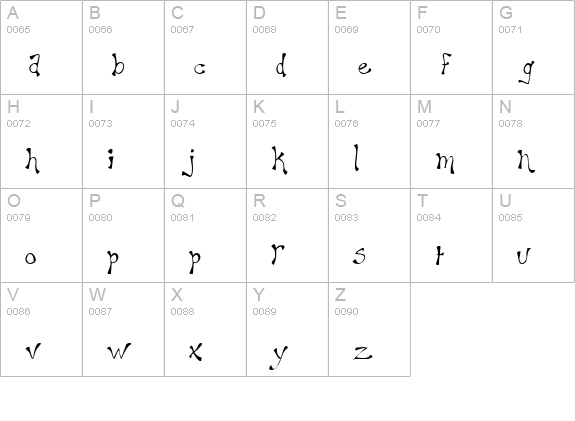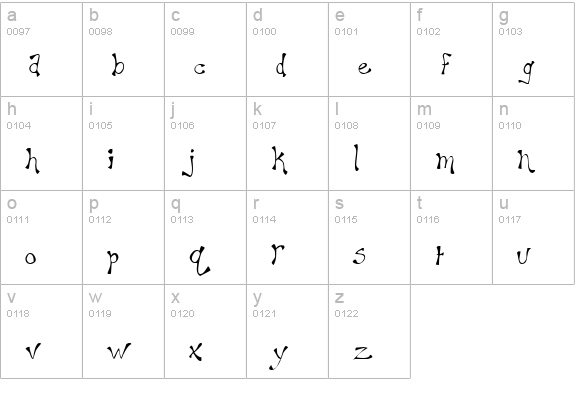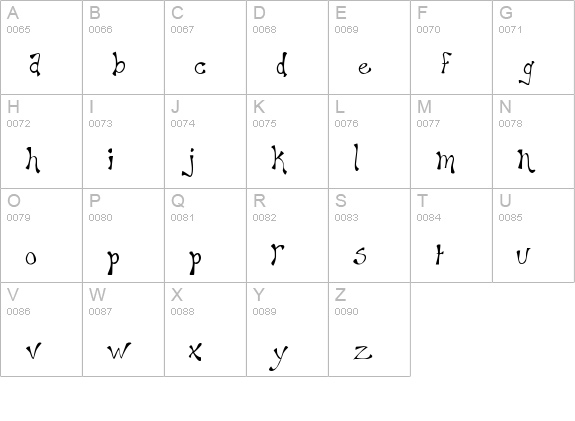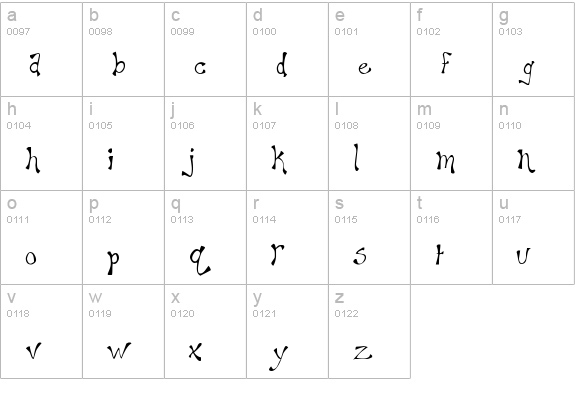
Maryellen Font Details
Introducing Maryellen, a stunning font that effortlessly combines elegance and versatility. With its graceful curves and refined details, Maryellen is the perfect choice for both formal and informal designs. Whether you are creating wedding invitations, logos, or branding materials, this font will add a touch of sophistication to any project. But what makes Maryellen truly special is that it is not only visually captivating, but also freely available to download at FontsMarket.com. Yes, you heard it right - this remarkable font can be yours without spending a dime. Now you can elevate your designs without breaking the bank. Downloading Maryellen from FontsMarket.com is a breeze. Simply visit the website, find the font, and click the download button. Within seconds, you'll have access to this incredible typeface that will enhance your creative endeavors. Don't miss out on the opportunity to add Maryellen to your font collection. Once you have Maryellen in your possession, the possibilities are endless. Its versatility allows it to shine in a variety of contexts, from elegant wedding stationery to modern corporate branding. The smooth lines and balanced letterforms ensure that your text will be effortlessly legible, while the subtle details give it a unique and memorable touch. Whether you are a professional designer or a passionate hobbyist, Maryellen is a font that will inspire and empower your creative endeavors. So why wait? Visit FontsMarket.com today and experience the beauty and freedom of Maryellen font. Download it for free and let your designs flourish with elegance and style.